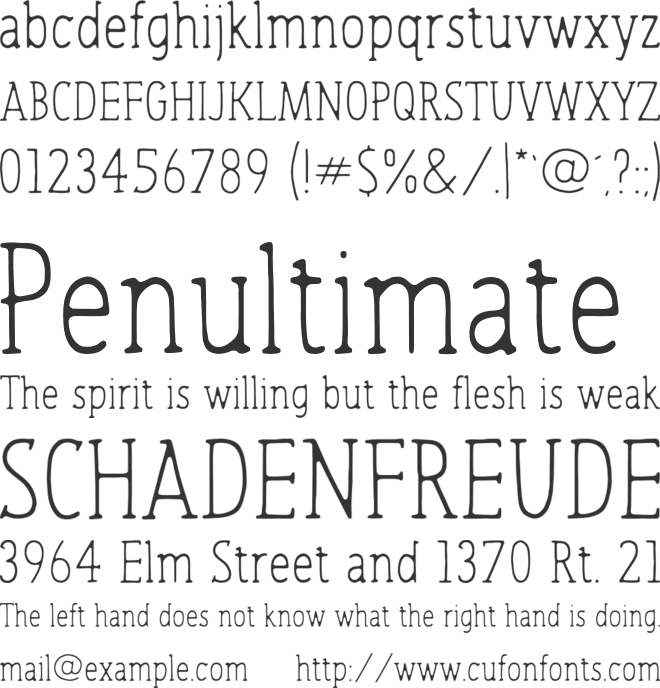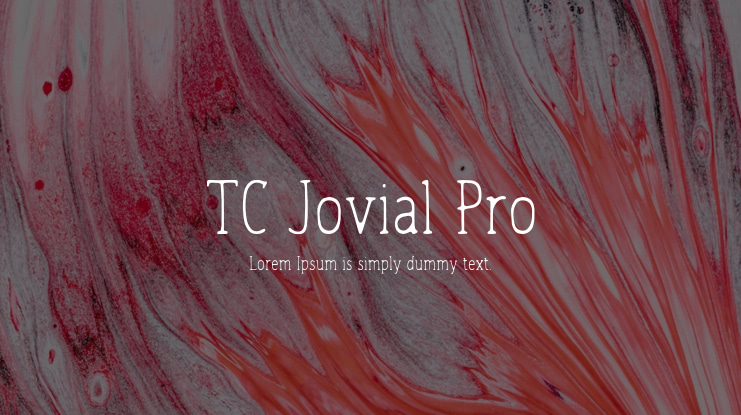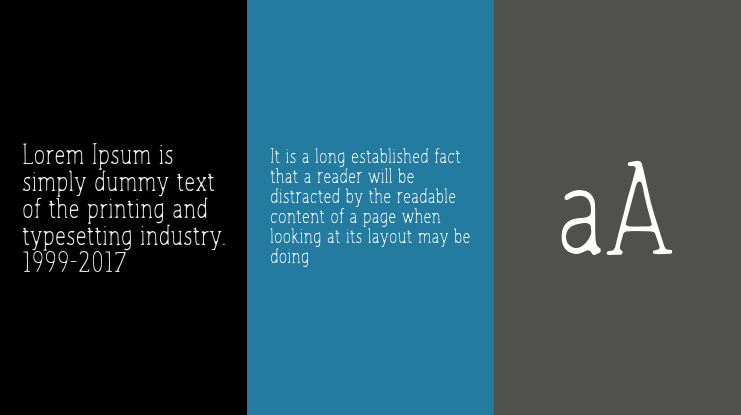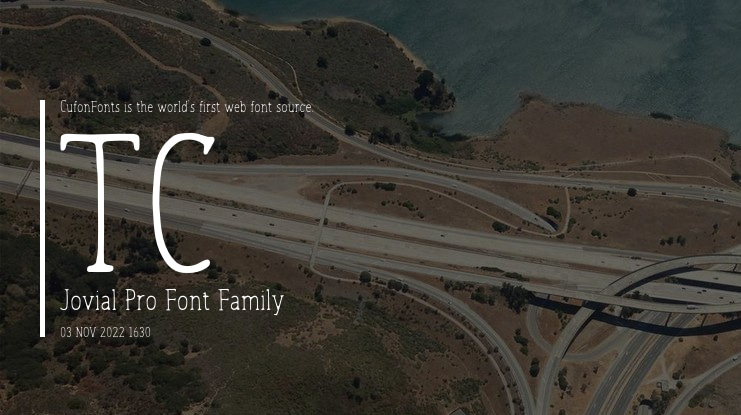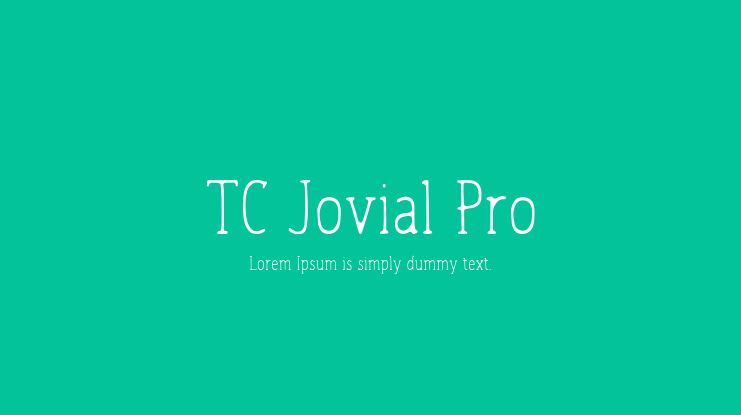
TC Jovial Pro Font
There are four fonts in the full collection, and below you'll find the description:
Jovial Serif brings a delightful twist to the classic serif typeface by combining handwritten charm with the structure of traditional serifs.
Available in Regular, Bold, and Condensed, this versatile font is designed to add warmth and personality to your projects. Its quirky curves and subtle details make it perfect for everything from product packaging and menus to branding and editorial designs.
Jovial Serif stands out with its handcrafted feel while maintaining excellent readability, offering a perfect balance between playful and professional. It’s an ideal choice for any creative project that calls for a touch of authenticity.
TC Jovial Pro font preview